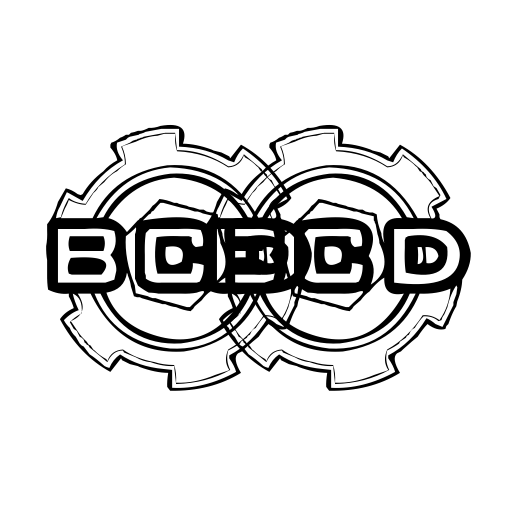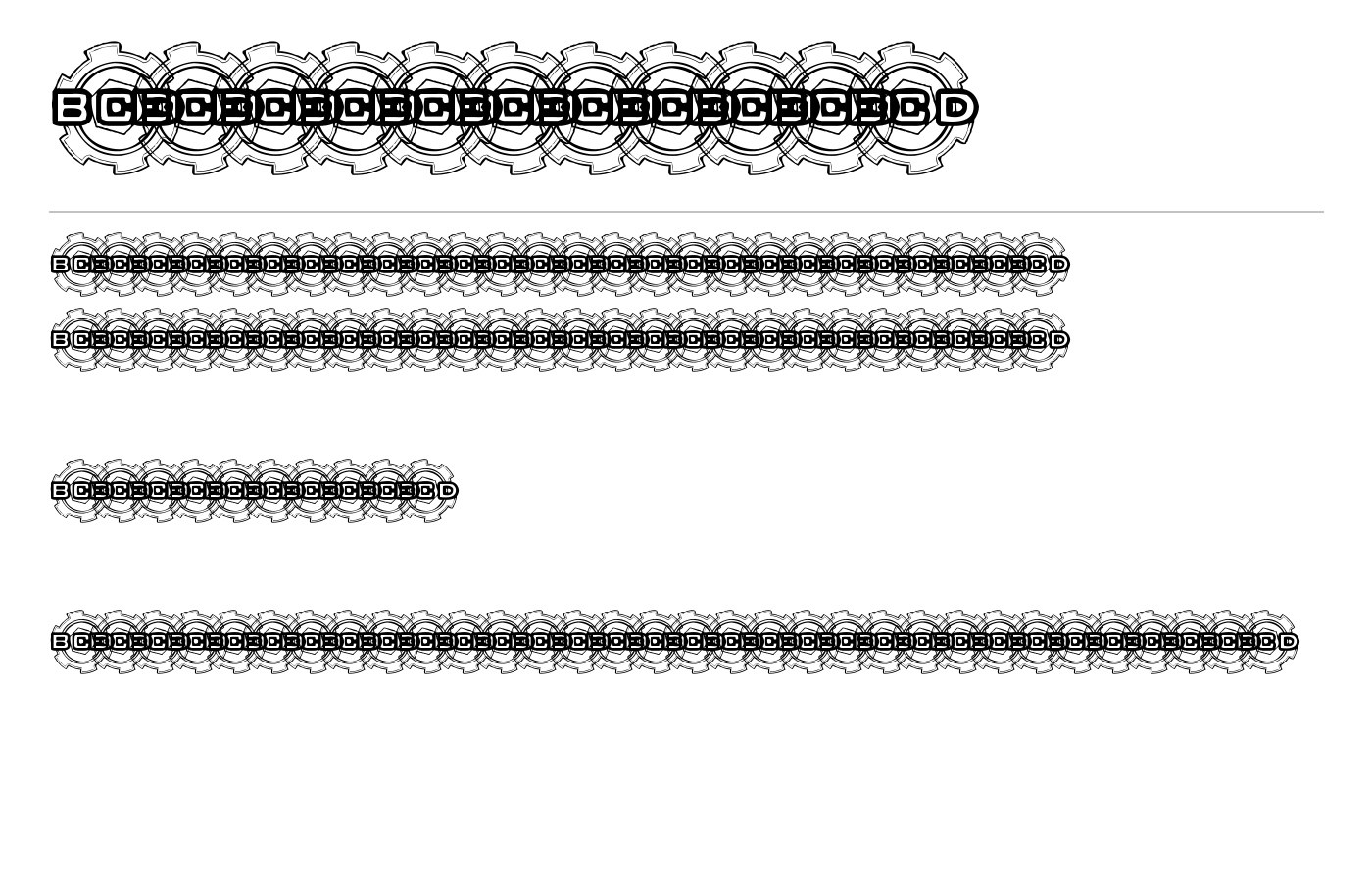
Bolt Cutter Nasty Font is a bold, geometric display typeface featuring thick, blocky letters with a distinctive mechanical gear outline that adds an industrial, edgy vibe. Its heavy weight and tightly spaced uppercase characters work best for impactful logos, posters, and designs that need a tough, mechanical feel. This font is ideal for brands seeking a strong, modern, and rebellious personality with a technical edge.
Bolt Cutter Nasty Font
About Bolt Cutter Nasty Font
| Font family | Bolt Cutter Nasty Font |
| Designer | High-Logic - Erwin Denissen |